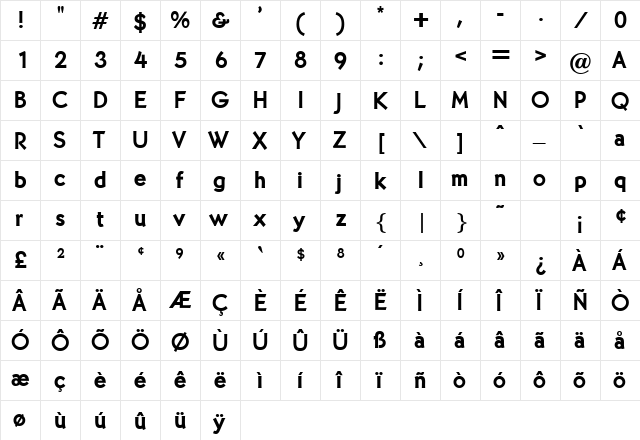
Malloy Regular
Design Context for Malloy Typeface
Malloy offers clean, dependable letterforms without strong stylistic allegiance, making it a practical choice for designers who need flexibility.
Pro Tip: Pair Malloy with a font of contrasting weight or personality to build a more expressive typographic hierarchy.